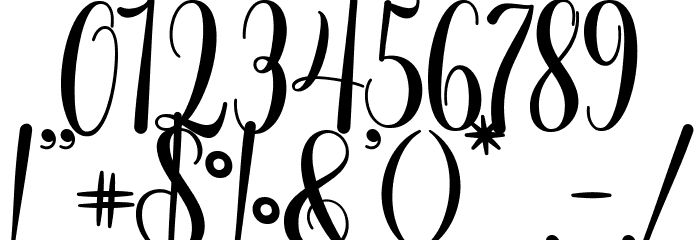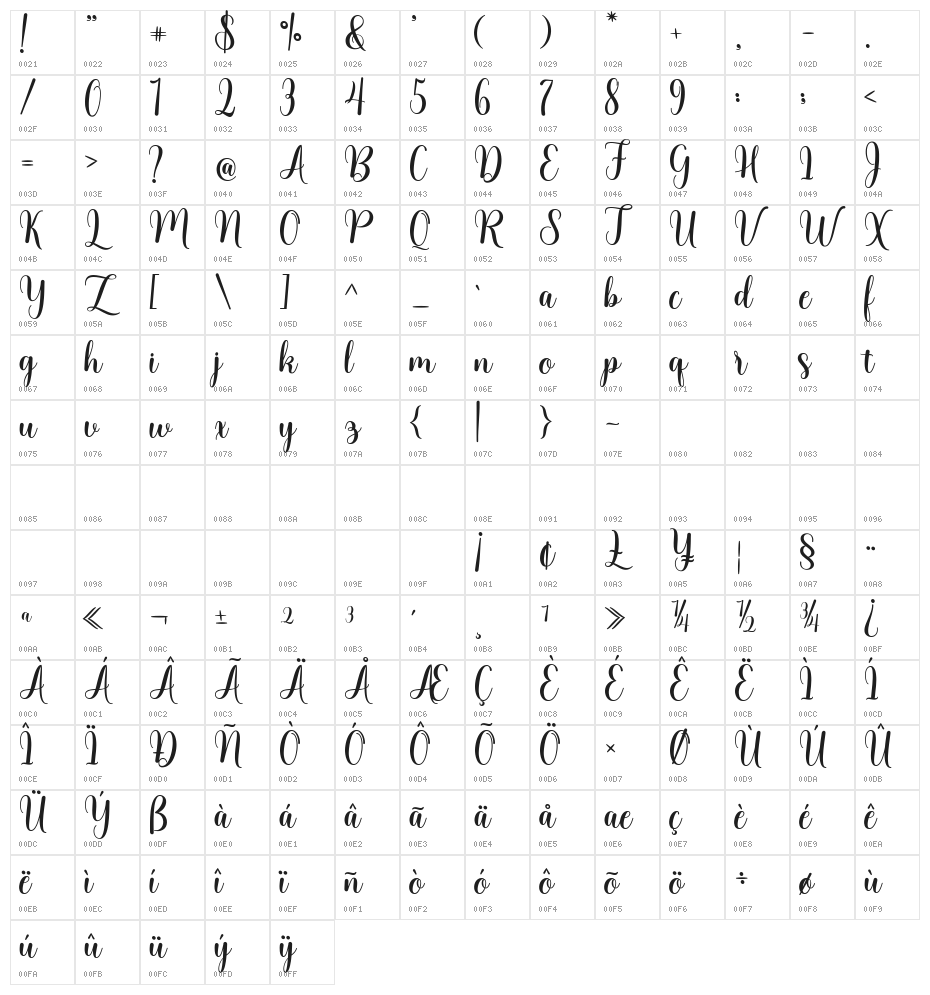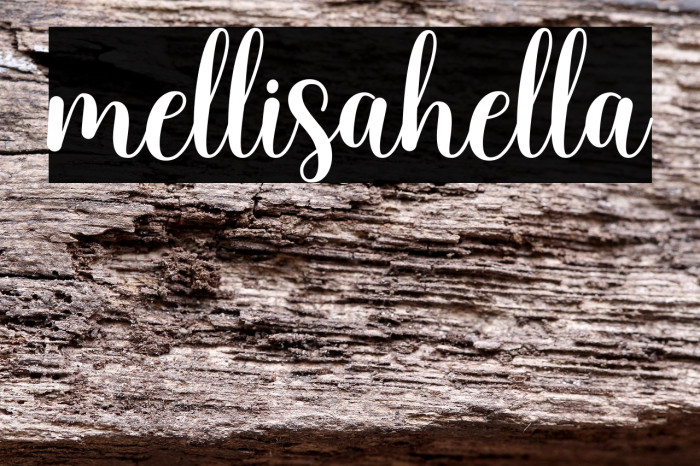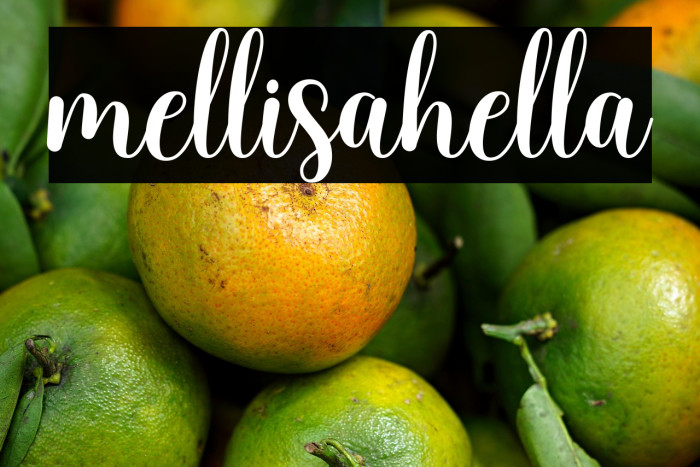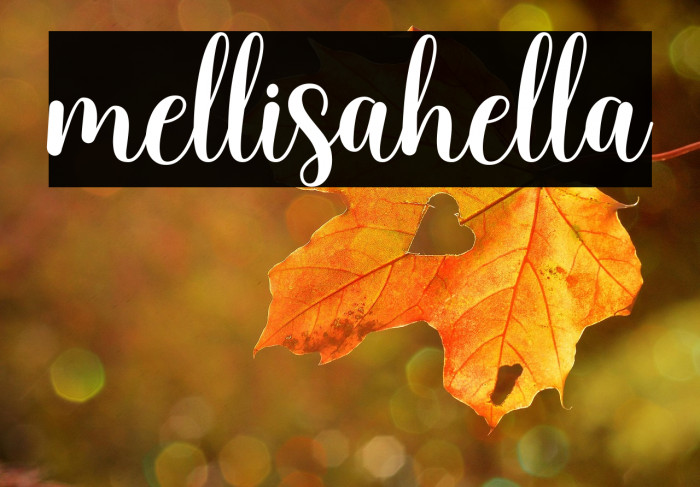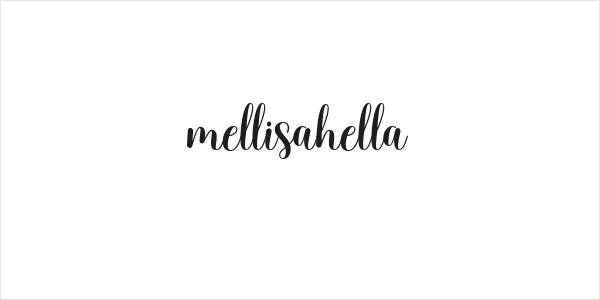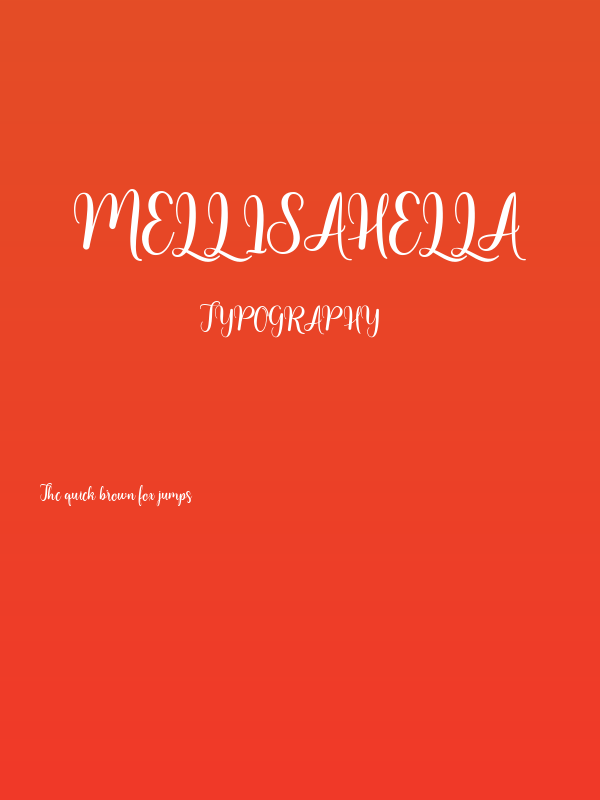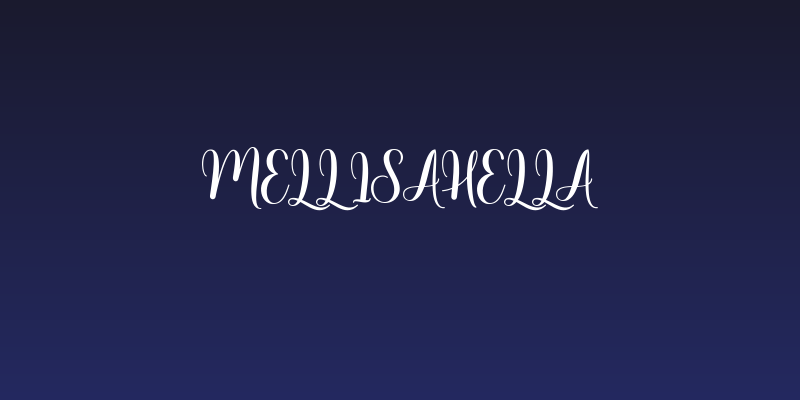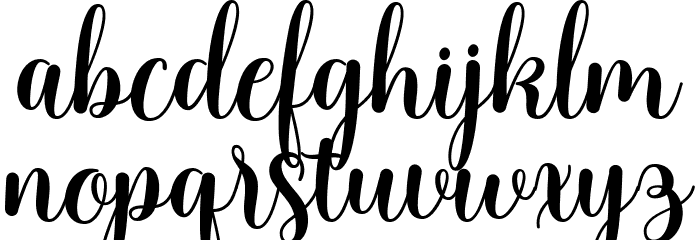
mellisahella Font
mellisahella Description
This font features an elegant, flowing script style with a modern touch. The characters are interconnected, creating a seamless and fluid appearance. The uppercase letters are tall and graceful, while the lowercase letters maintain a consistent flow, enhancing readability. The numerals and special characters are designed to complement the script, with a similar level of elegance and sophistication. This font is perfect for projects that require a personal, handwritten feel, yet retain a sense of formality and style.
Use CaseLogos, Invitations, Greeting Cards
Proposed ProjectsIdeal for wedding invitations, greeting cards, branding, and logo design.